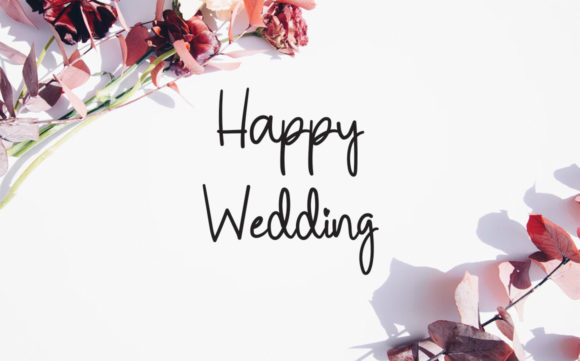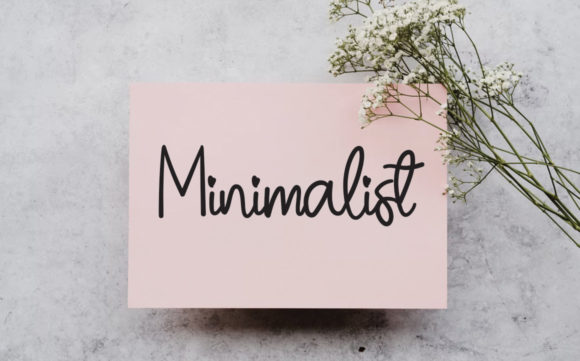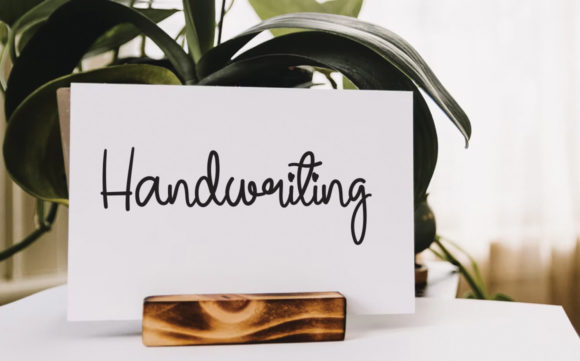
About Handmade Signature Font
Handmade Signature is an elegant script font with a contemporary atmosphere and impeccable form, inspired by timeless classic calligraphy. Not too thin and not too thick, balanced and varied, this font was designed to enhance the beauty of your projects.Â